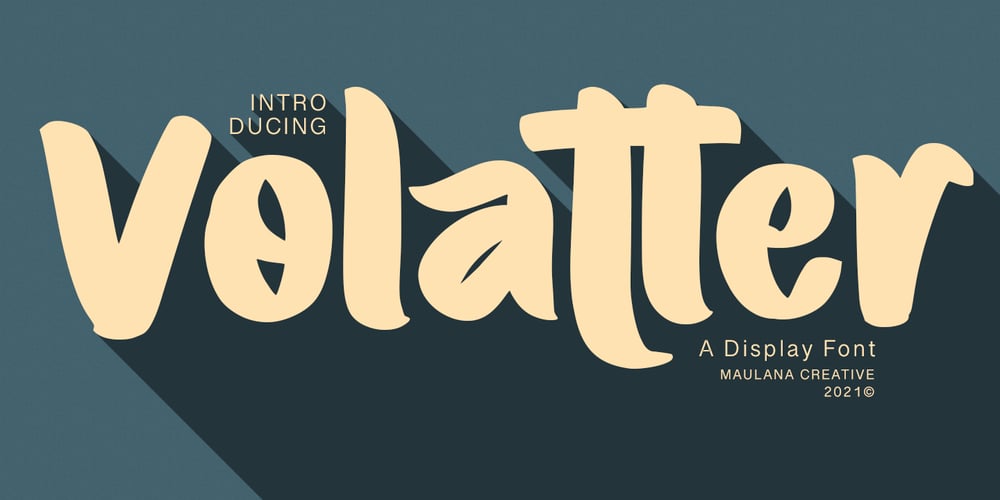
Volatter Font Family was designed by Gilang Maulana and published by Maulana Creative. Volatter contains 1 styles and family package options. Volatter is simply handwritten display font with natural hand drawn, clean bold stroke, uprights and fun character. To give you an extra creative work. Volatter font support multilingual more than 100+ language. This font is good for logo design, Social media, Movie Titles, Books Titles, a short text even a long text letter and good for your secondary text font with sans or serif. Make a stunning work with Volatter font. Cheers, MaulanaCreative